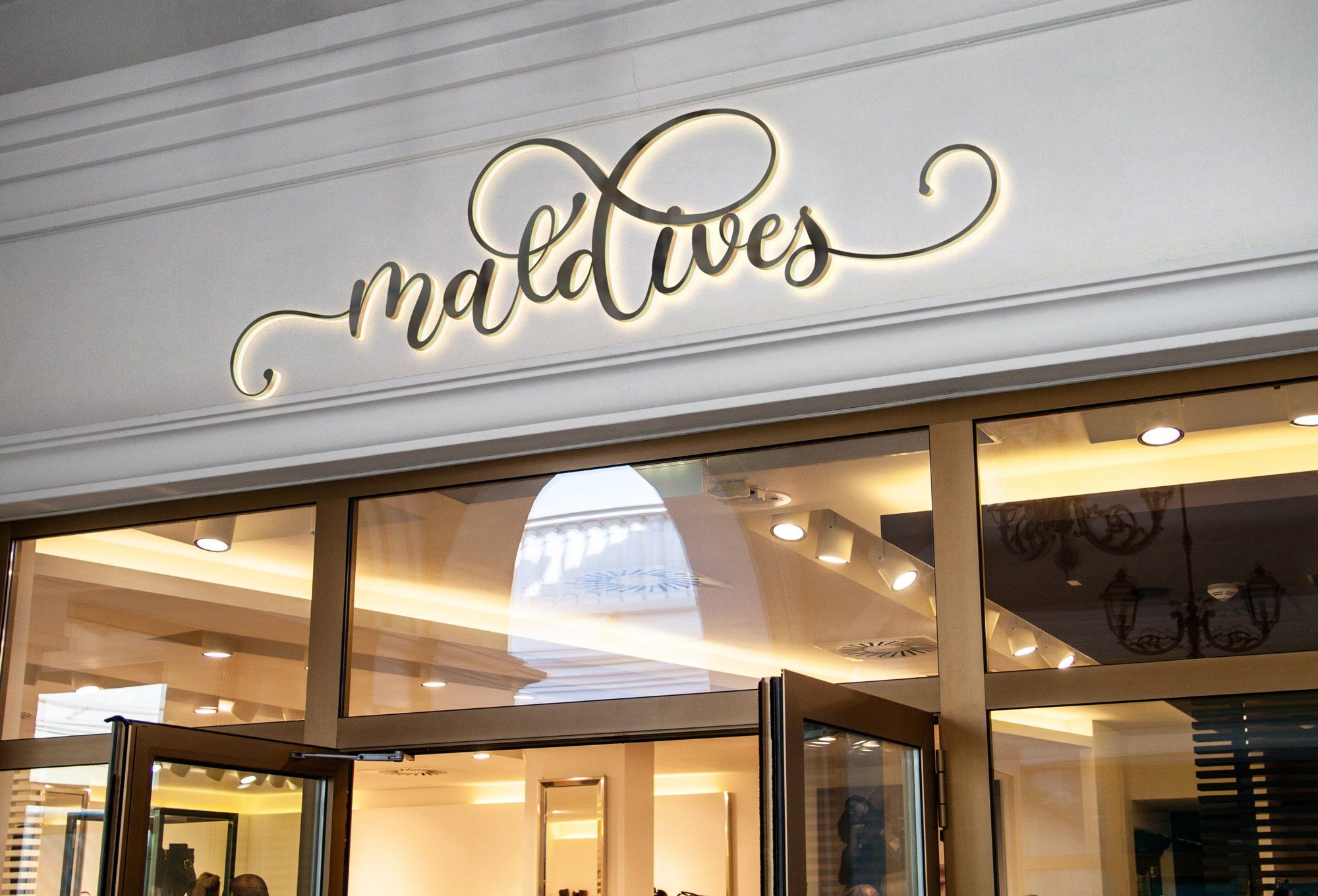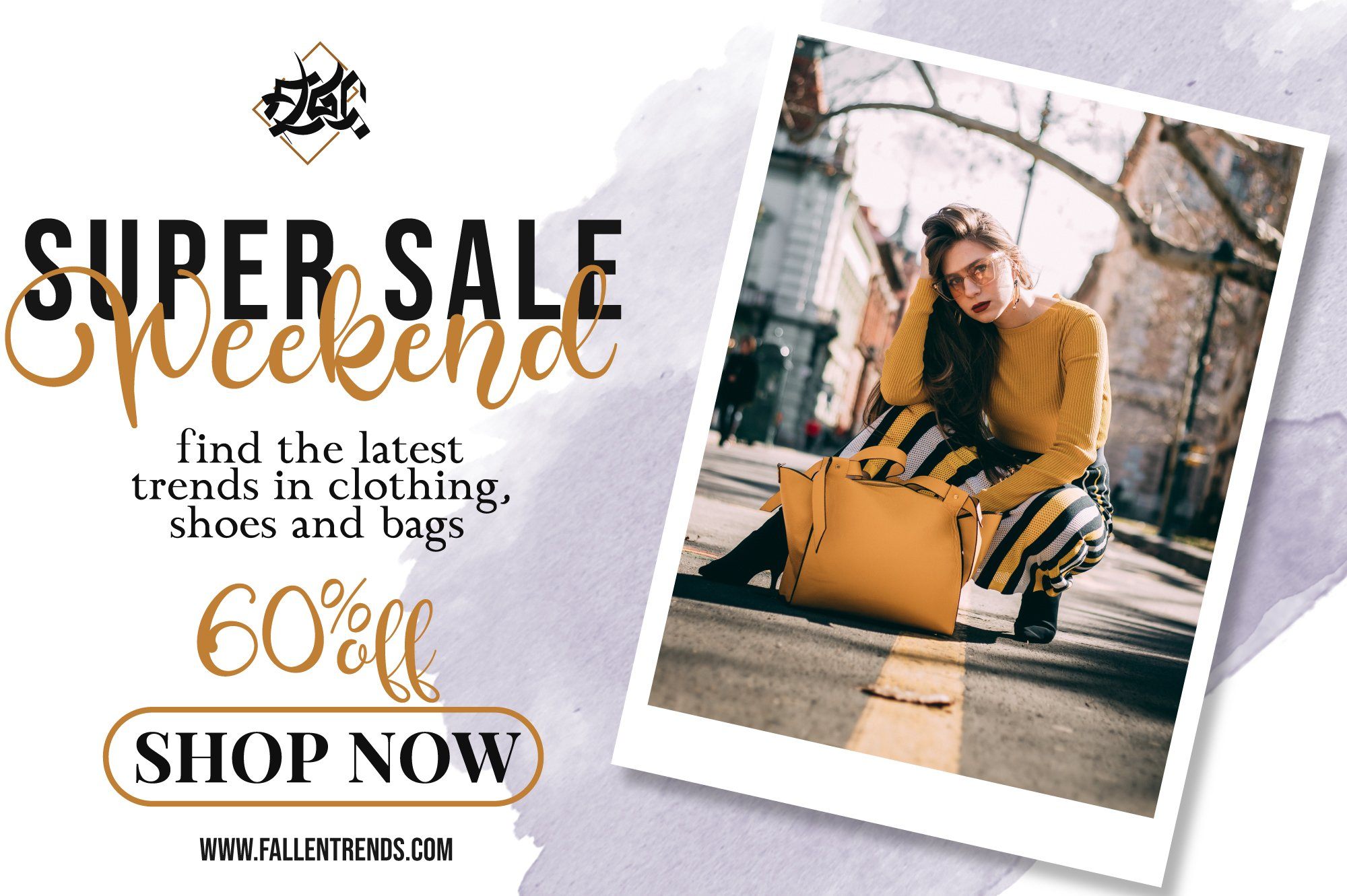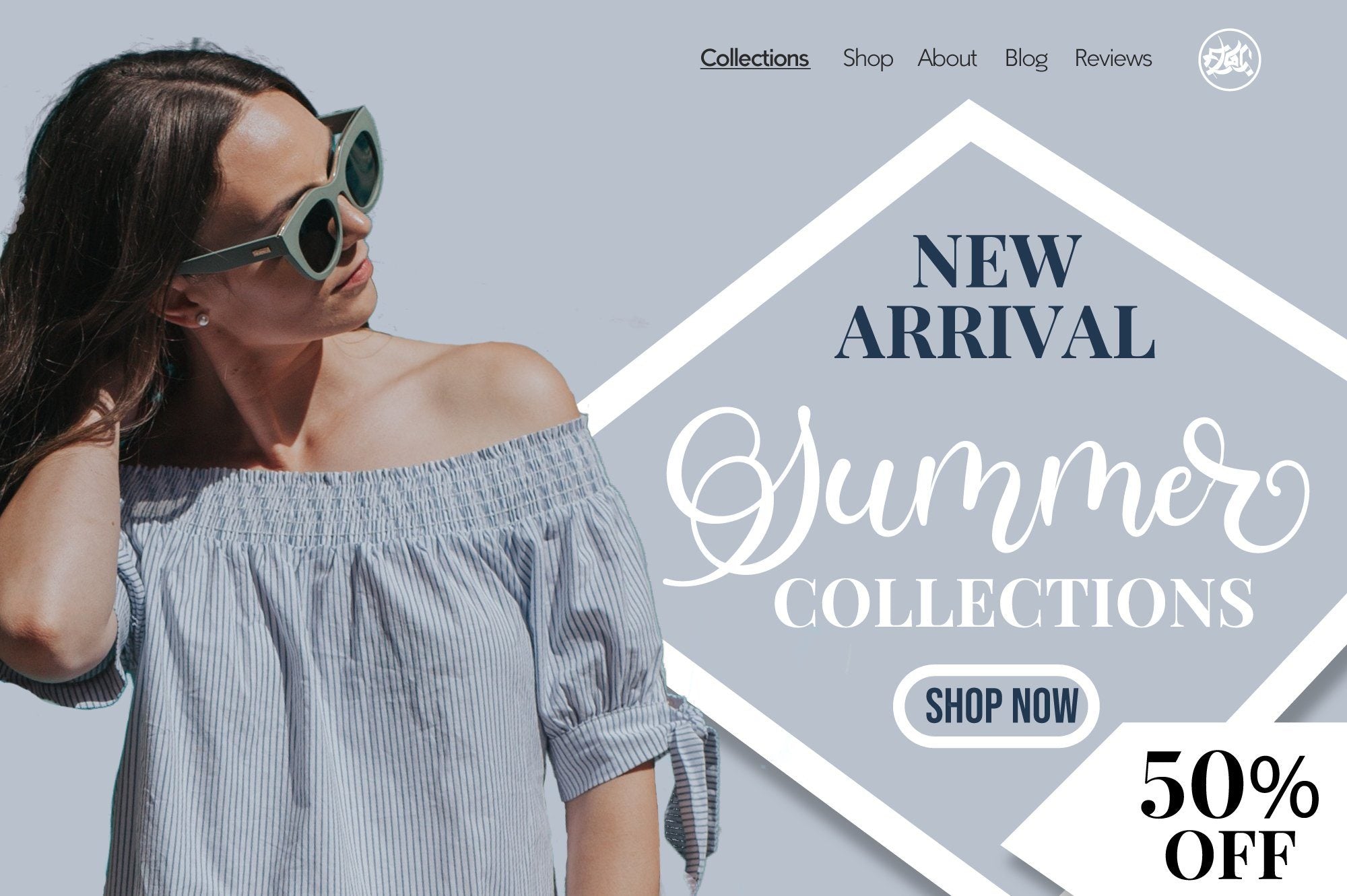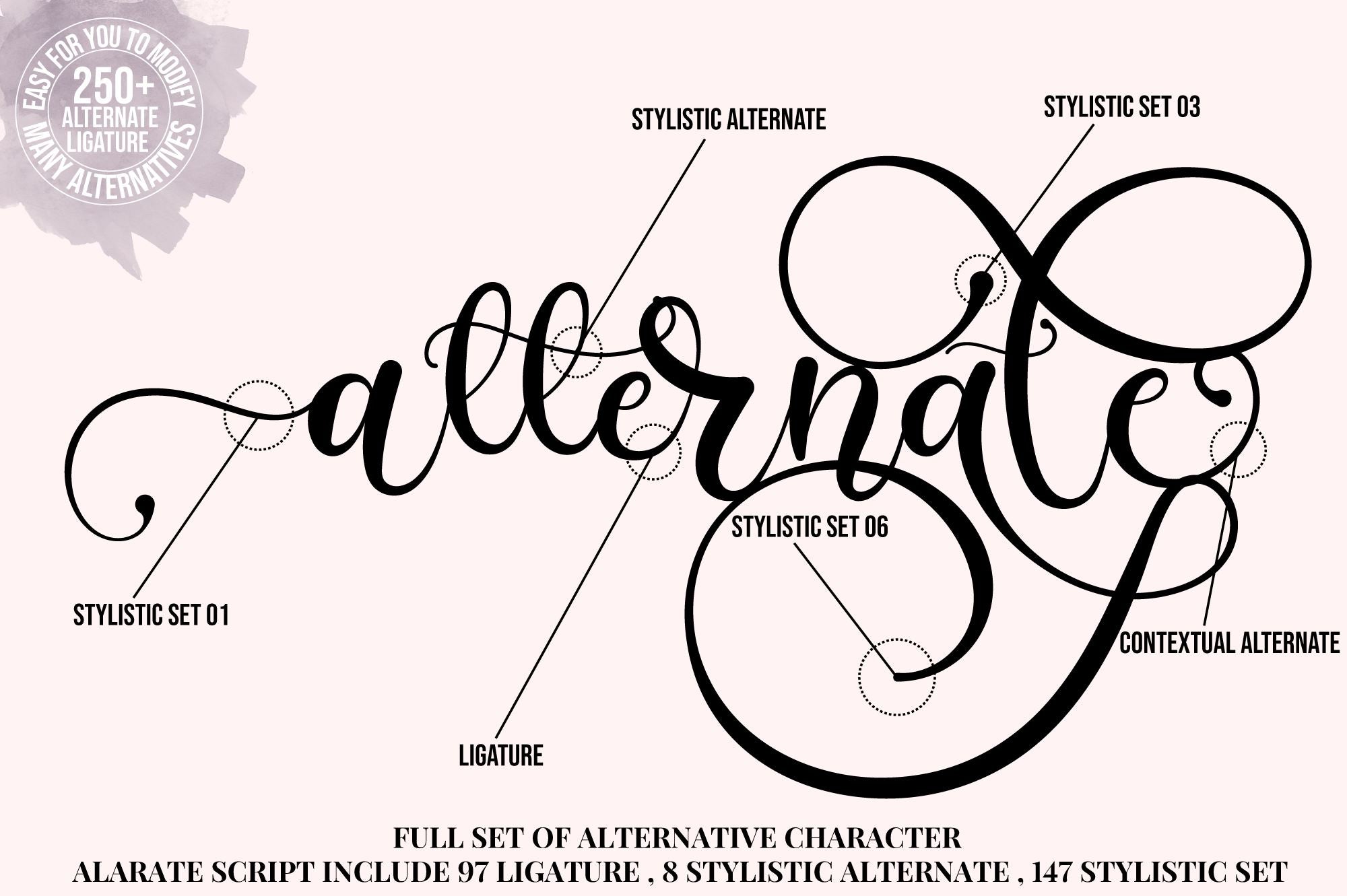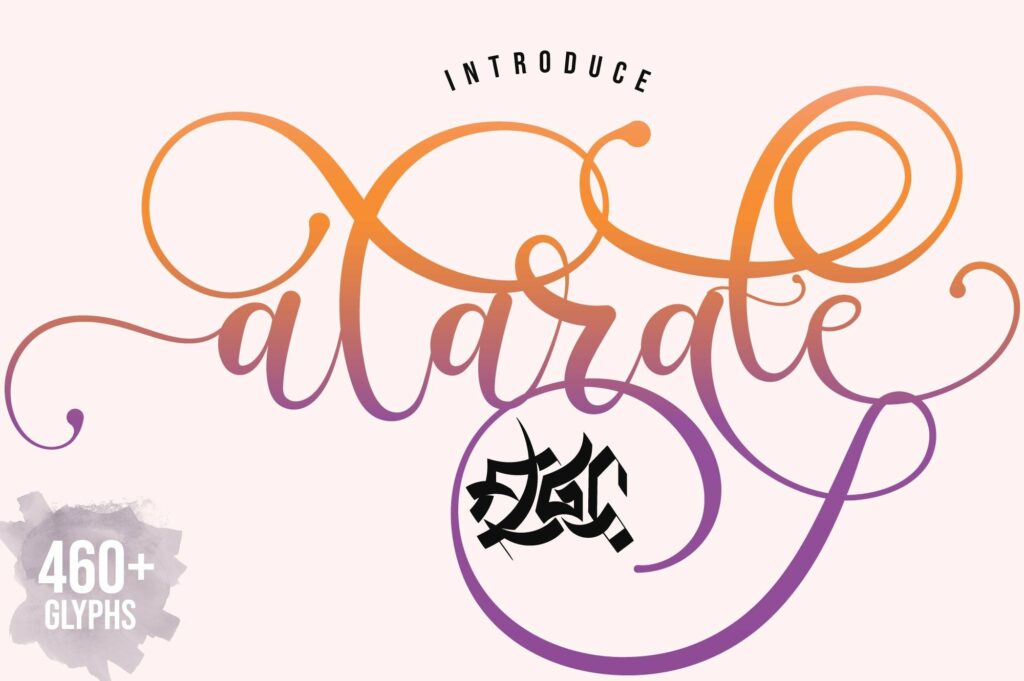
About Alarate Script
Alarate Script a lovely script with a feminimst calligraphy style, decorative characters . in this font script there are many alternative choices of characters Support Ligature,contextual alternate,stylistic alternate and Stylistic set. So beautiful on invitation like greeting cards, branding materials, business cards, quotes, posters,wedding invitations and more!! Thank you!